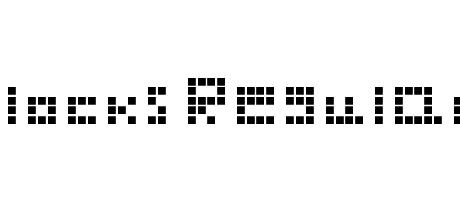
Blocks
By Robert Fortanier
Blocks Regular is a pixelated font, each letter formed by a grid of small, square blocks. It evokes a retro, 8-bit video game aesthetic. The simple, bold shapes create a strong, easily readable typeface, despite its blocky construction. It's ideal for projects needing a nostalgic or digital vibe.